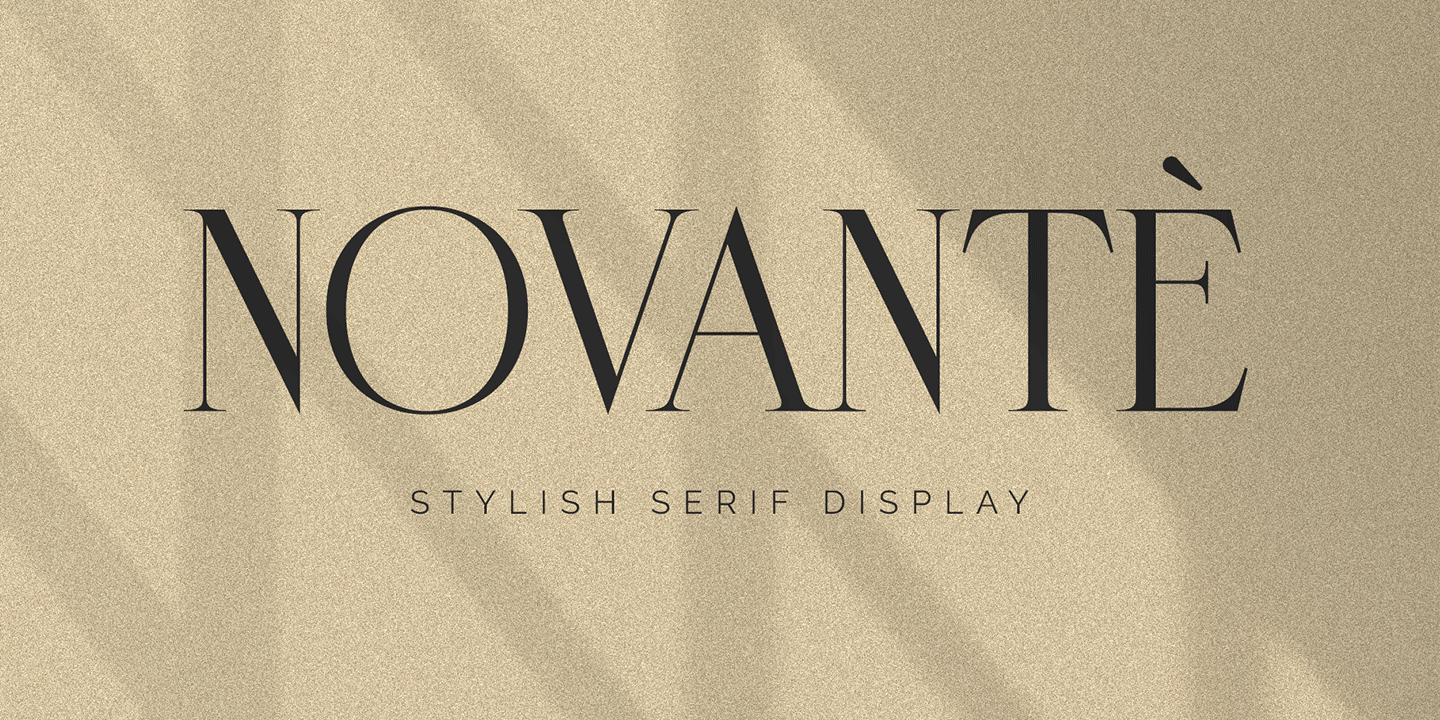
The Novante Font excels in various design applications including luxury fashion branding, elegant jewelry marketing, premium cosmetics packaging, sophisticated magazine layouts, high-end restaurant menus, exclusive hotel communications, upscale retail signage, refined wedding invitations, luxury lifestyle brands, and distinguished editorial projects that demand timeless elegance and contemporary sophistication.
What makes the Novante Font exciting is its masterful interpretation of classic European typography traditions infused with modern refinements that create an atmosphere of understated luxury and cultural sophistication. This typeface embodies the essence of Italian design philosophy, featuring graceful proportions, elegant curves, and refined details that convey exclusivity and refined taste. The font's distinguished character makes it perfect for luxury brands seeking to establish premium positioning through typography that communicates heritage, craftsmanship, and timeless appeal to discerning audiences.
The Novante Font family typically includes multiple weight variations from delicate light to commanding bold, featuring complementary italic styles with enhanced flourishes and decorative elements. These family options often include small caps, old-style numerals, elegant ligatures, and ornamental glyphs specifically designed for luxury applications, providing designers with comprehensive tools for creating sophisticated visual hierarchies and premium brand expressions.
Luxury brand designers and high-end market professionals consistently choose Novante Font Free Download for projects requiring sophisticated visual communication that resonates with affluent, cultured audiences. This typeface delivers exceptional performance in premium retail environments, luxury hospitality branding, and exclusive product marketing where conveying elegance, exclusivity, and cultural refinement is crucial for brand success. The font's European sophistication makes it particularly effective for international luxury markets. Download Novante Font Free Download today to access this distinguished typeface that elevates premium branding with its inherent elegance and refined sophistication, creating compelling visual experiences that embody the finest traditions of luxury typography and contemporary design excellence.